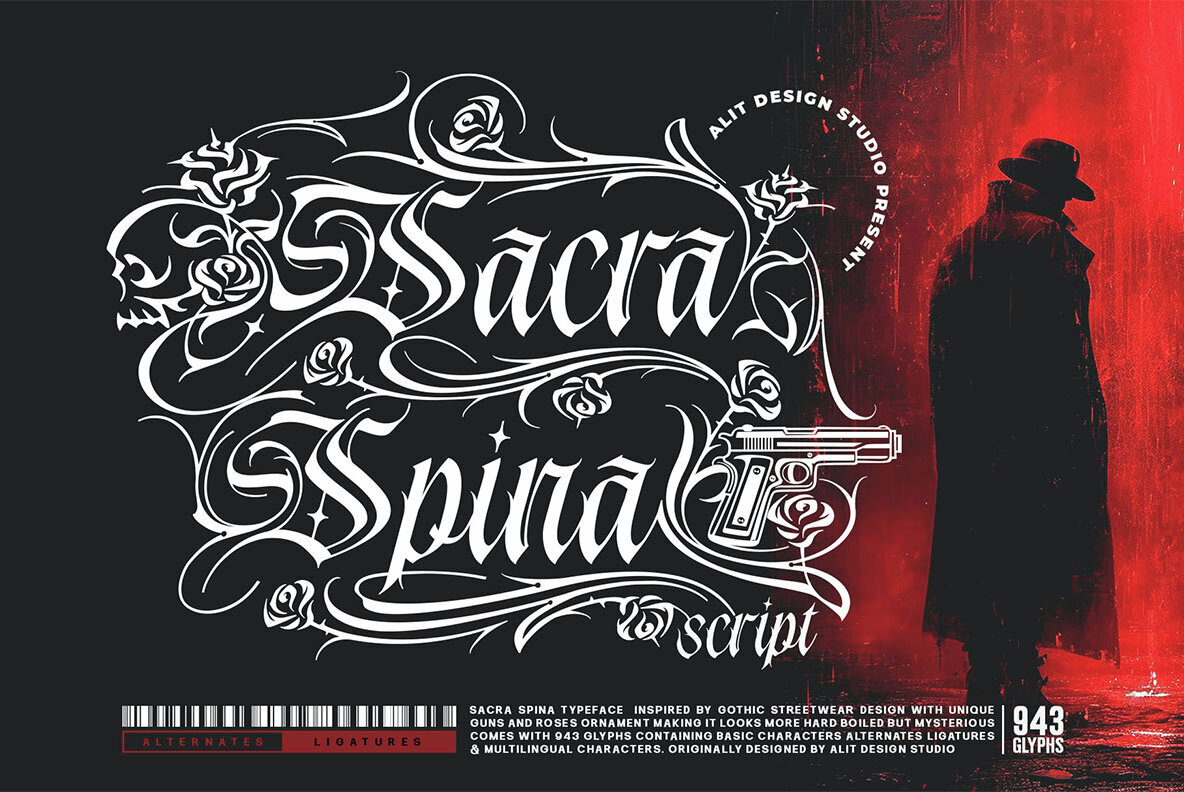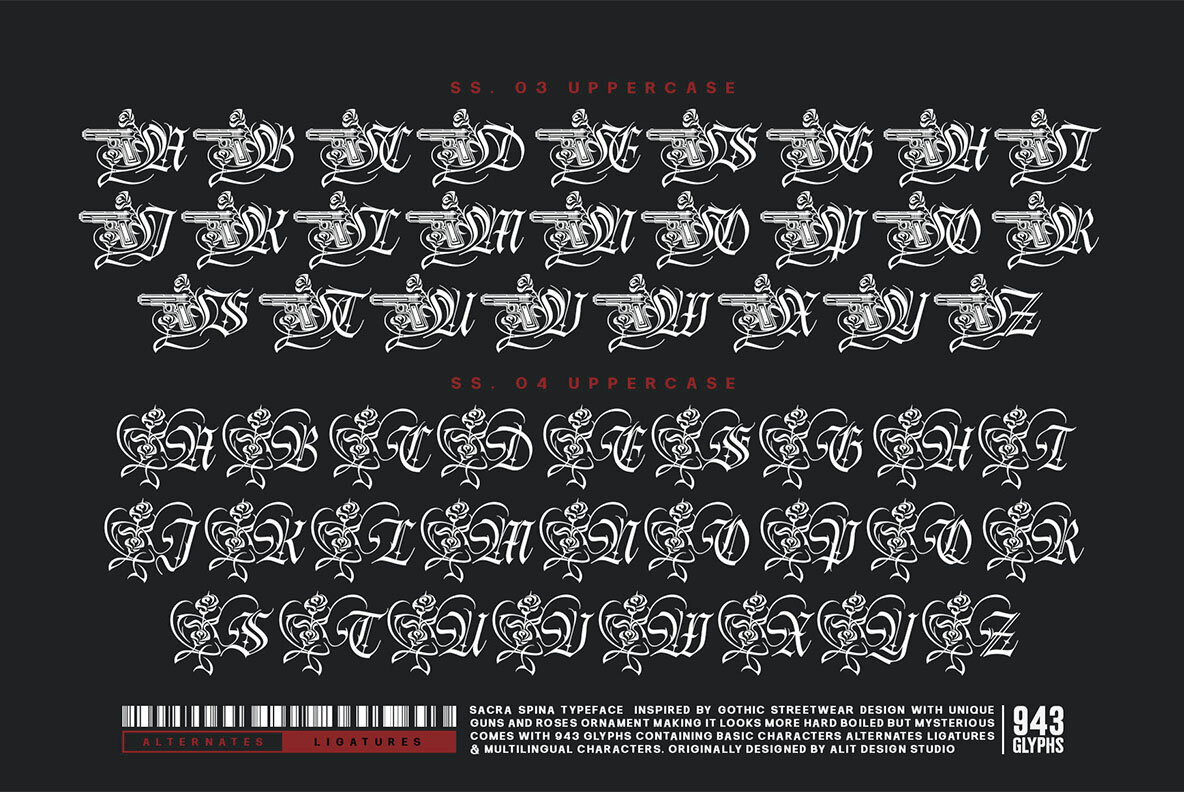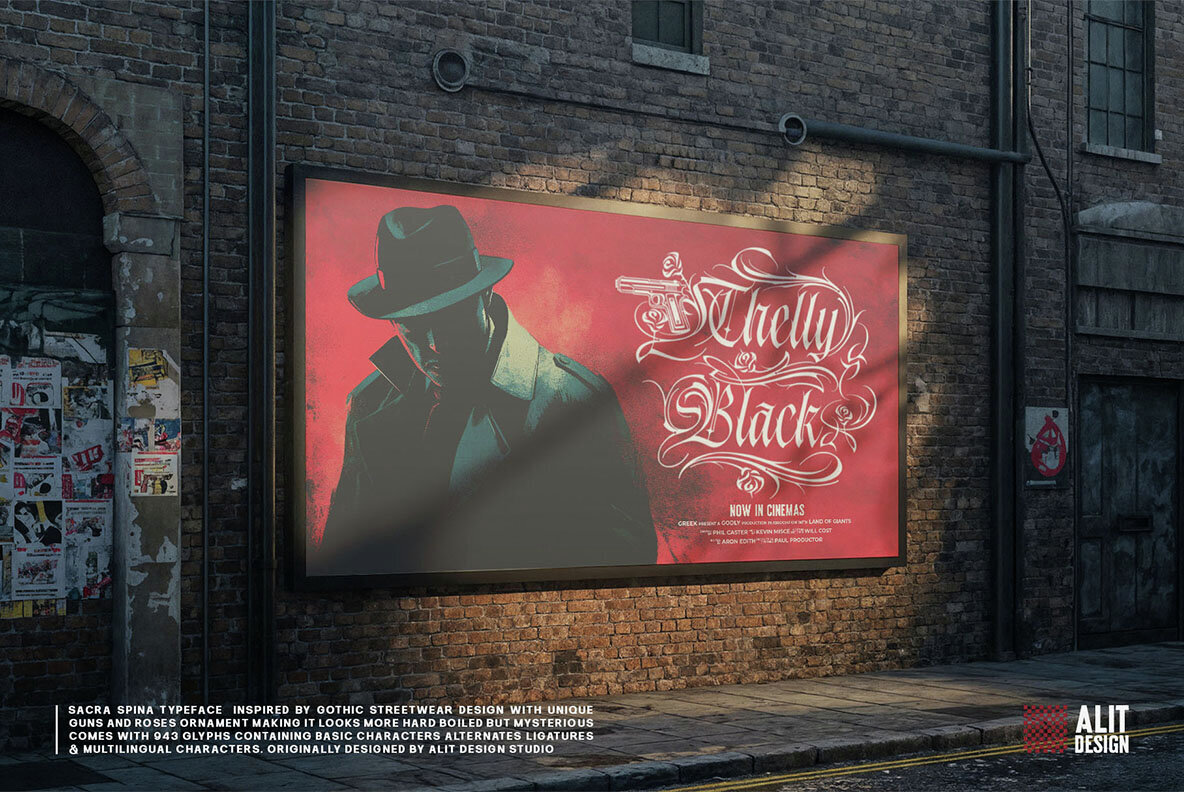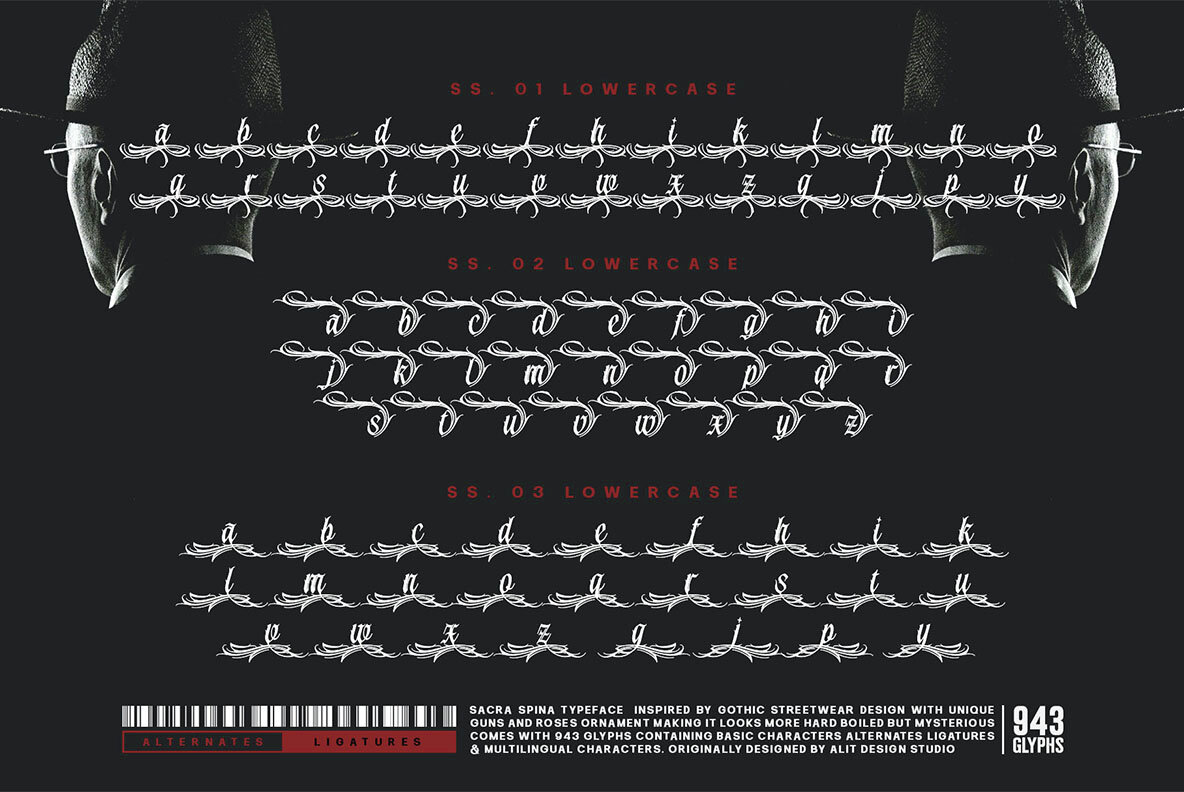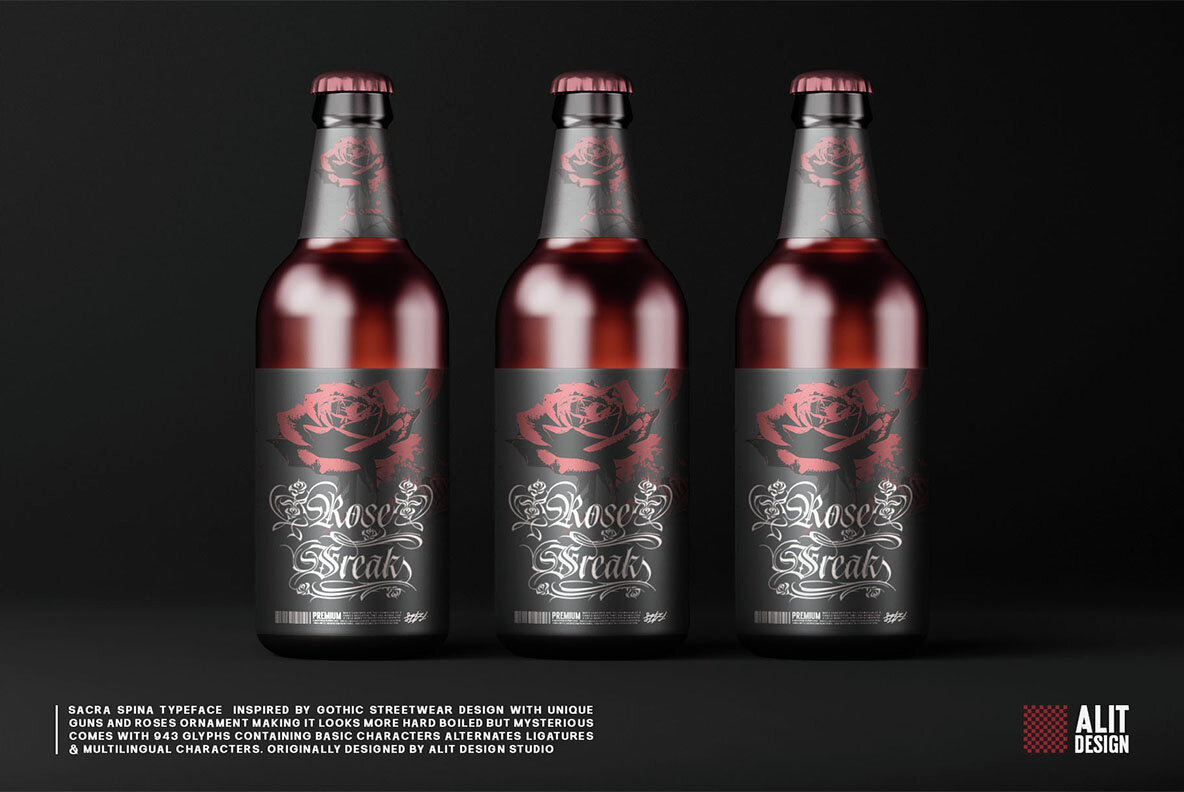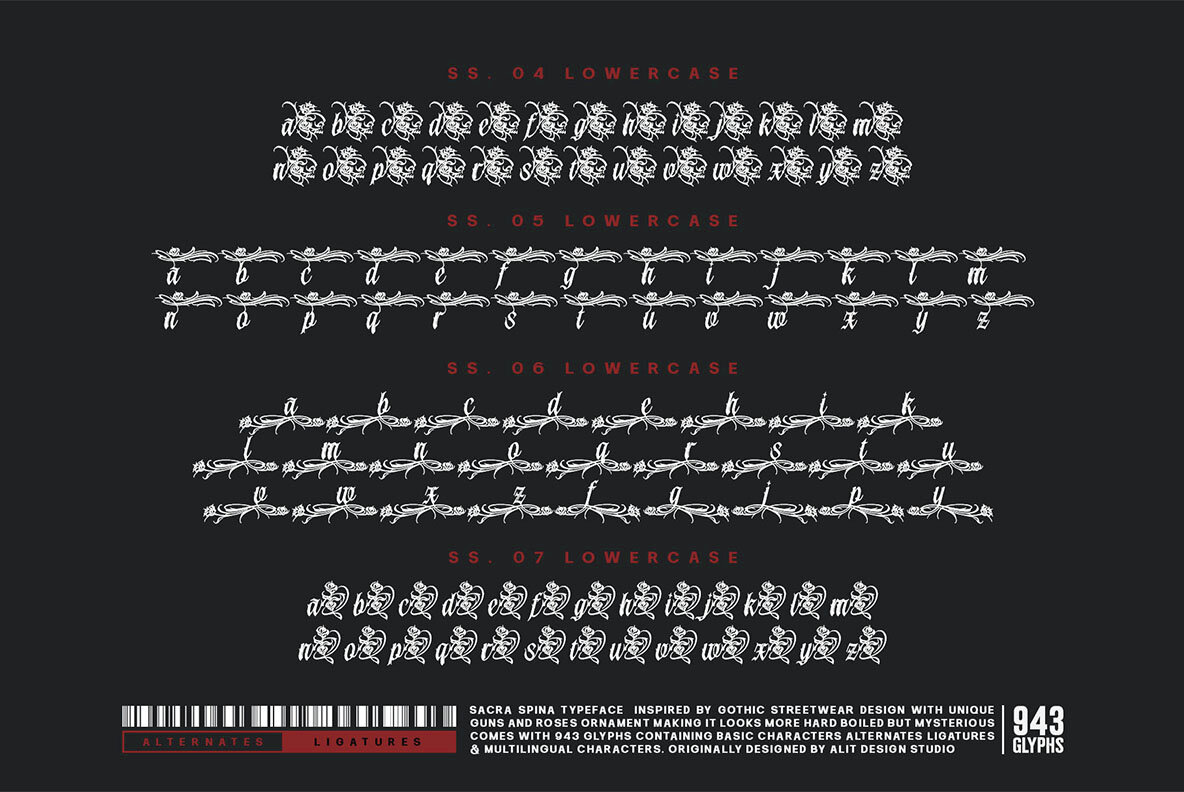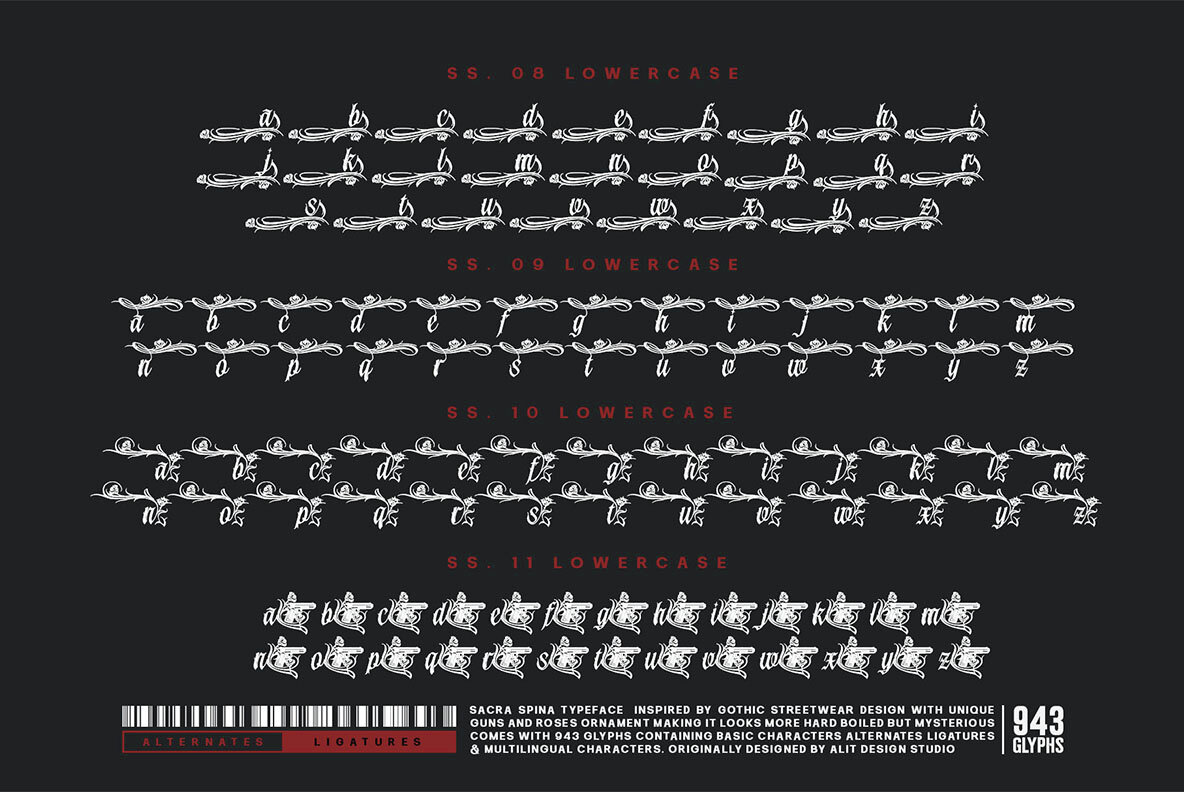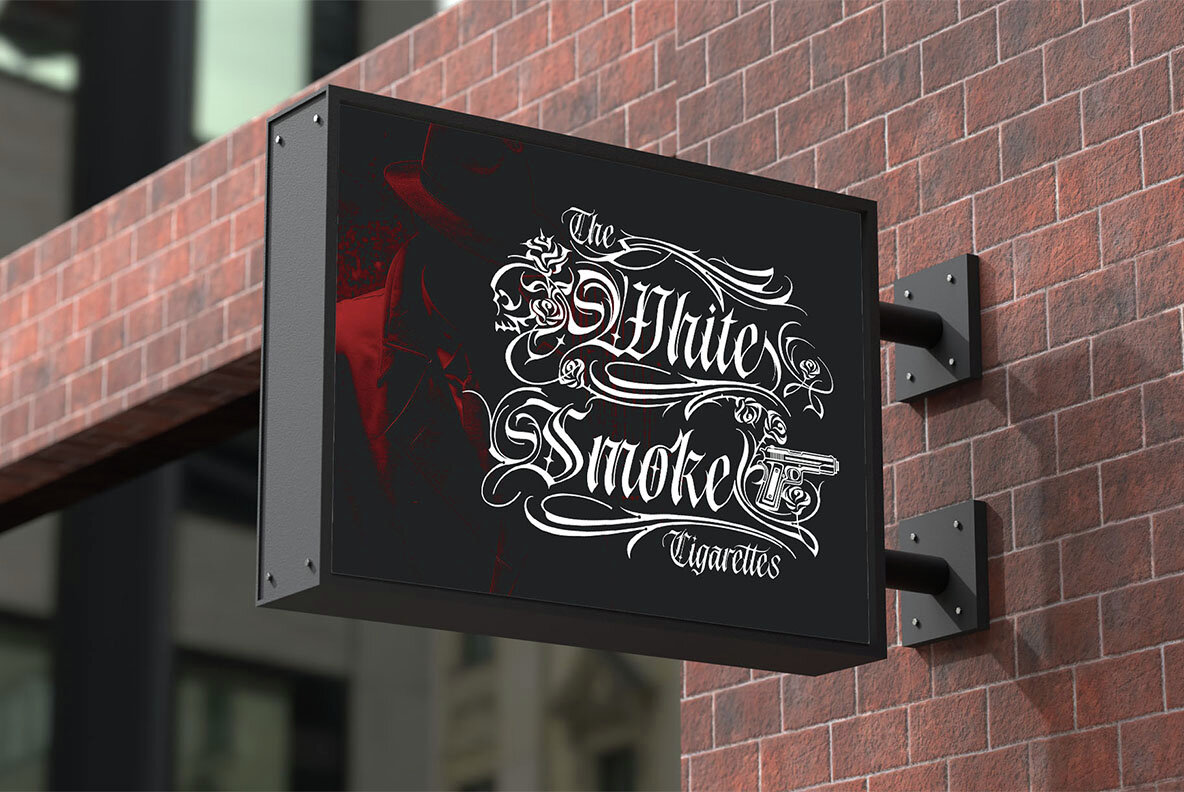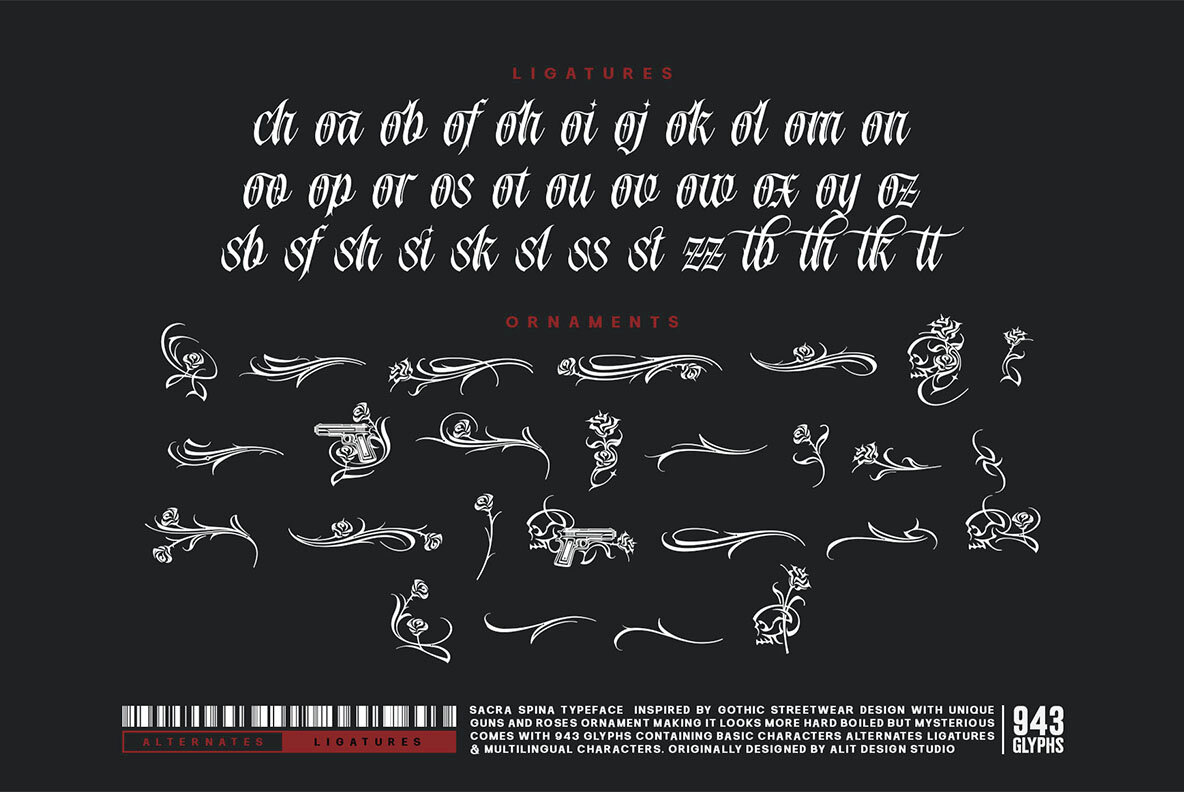
Scana Spina Font
expand_font Scana Spina Font Unveil the shadowy allure of Sacra Spina, a fierce blackletter typeface merging tradition with rebellious flair. Ideal for bold designs. Blackletter,Gothic,Tattoo,Mafia,Crime,Noir,Streetwear,Edgy,Calligraphic,Spiky,Medieval,Vintage,Old Style,Fantasy,Ornamented Explore Exceptional Fonts for Digital and Traditional Media Fontpath offers a large variety of fonts for every designer, all at affordable prices and in multiple formats. Browse our best in class fonts today for all your creative needs, you can find everything you need right here at our site! Fonts,sans,sans serif,retro,script,decorative,title,FontPath 20140312040223 Fontpath offers 200,000+ of the most professional fonts found online, start downloading today! Real-Time Font Discovery at Fontpath
Scana Spina Font